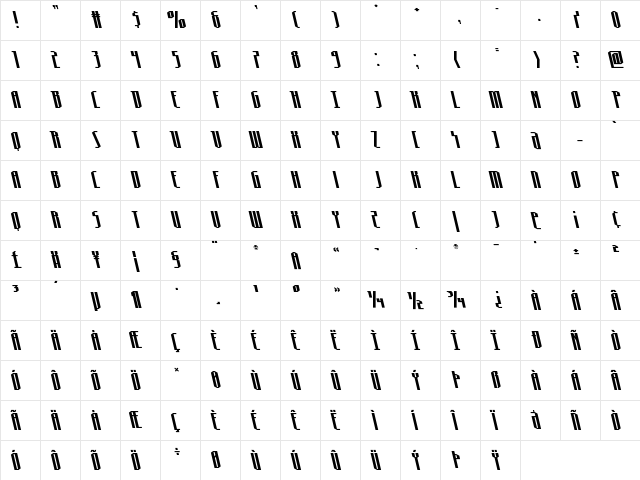
Hydronaut Leftalic Regular
Design Context for Hydronaut Leftalic Typeface
Hydronaut Leftalic offers clean, dependable letterforms without strong stylistic allegiance, making it a practical choice for designers who need flexibility. Its italic angle brings a sense of urgency and motion to the letterforms.
Pro Tip: Try Hydronaut Leftalic for annotation and caption copy alongside an upright companion — the contrast in angle creates a dynamic but ordered typographic system.